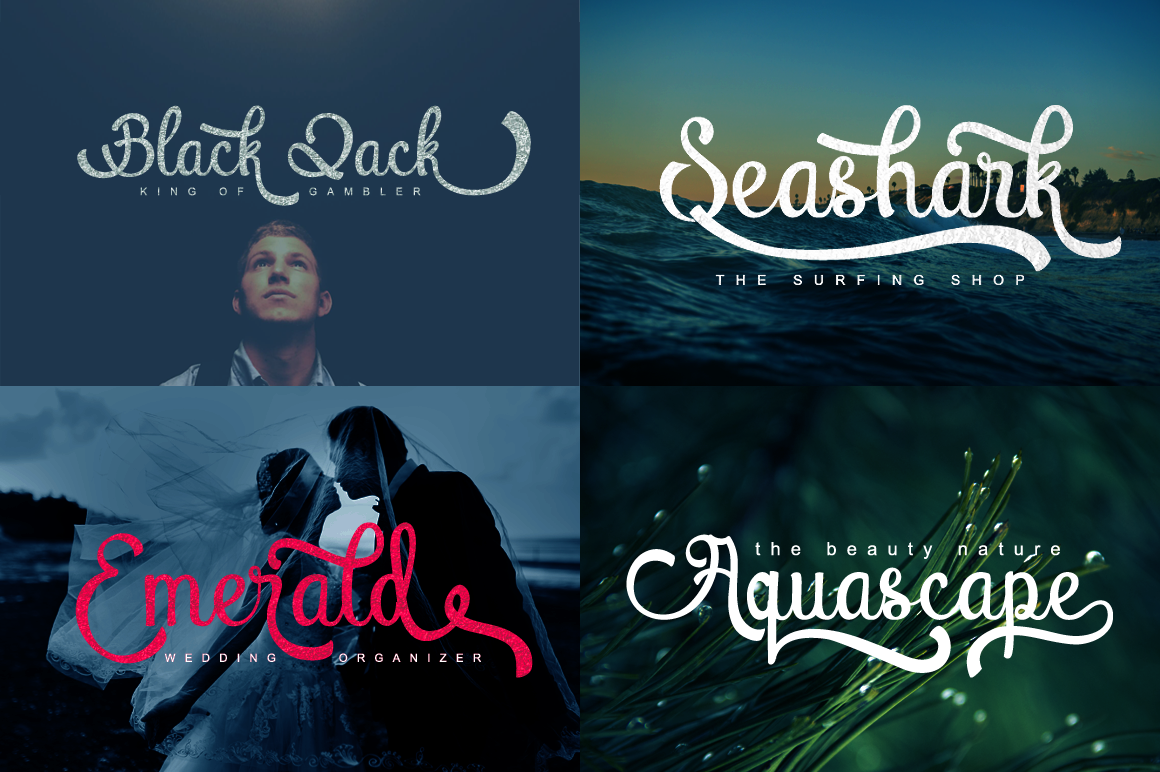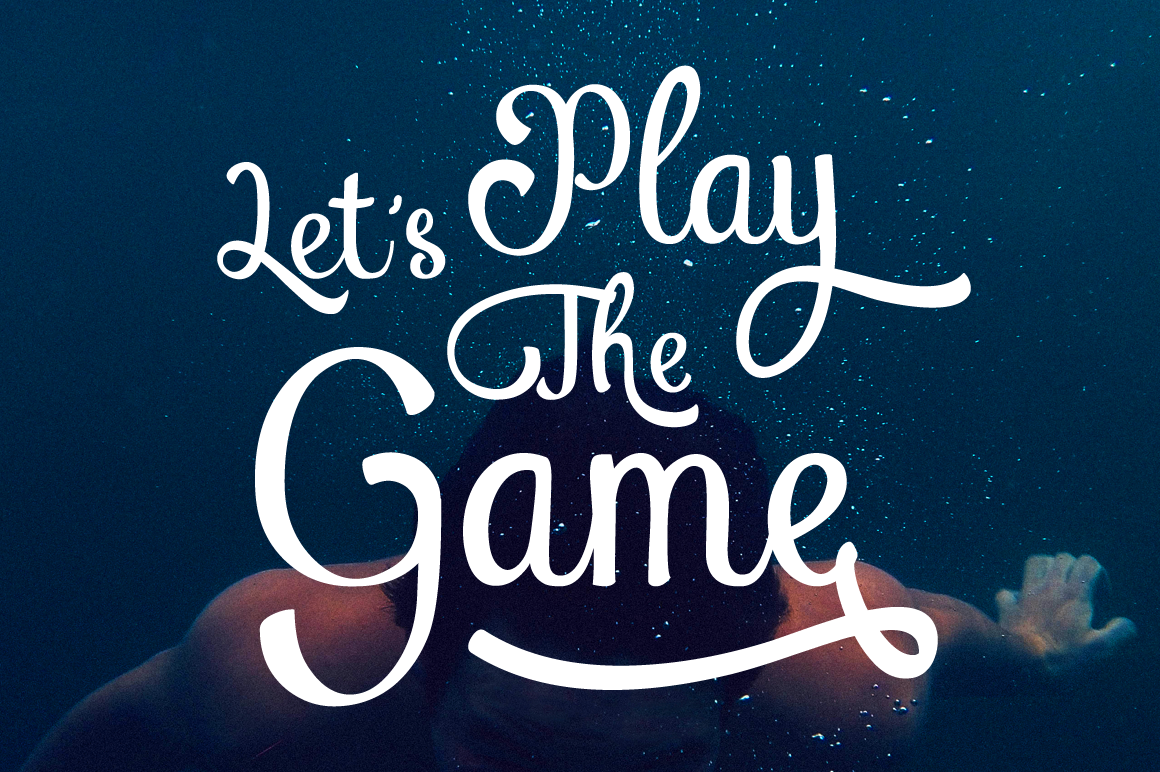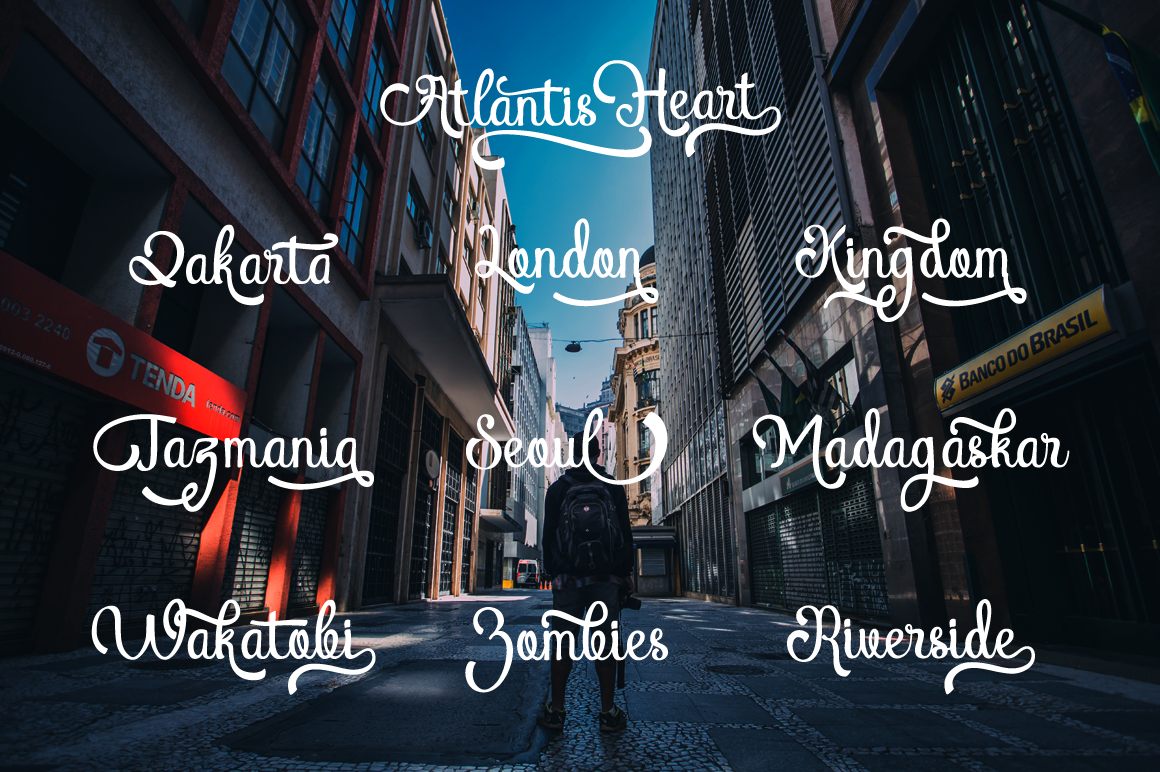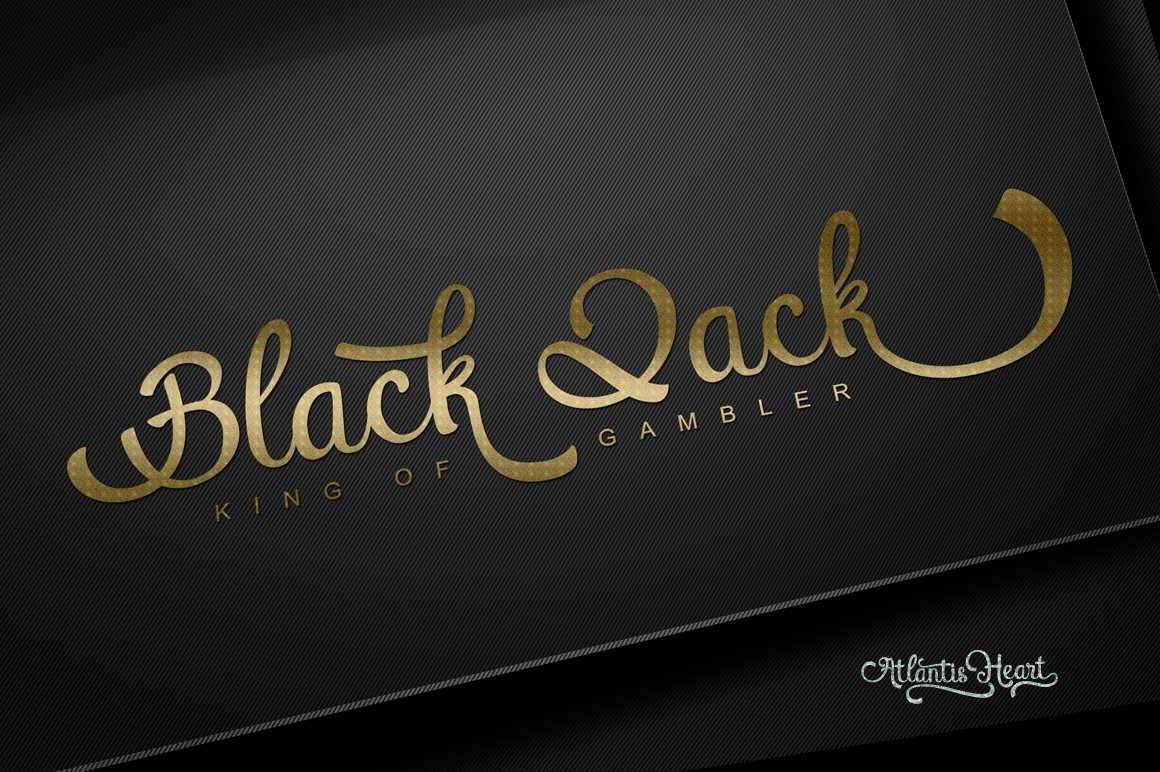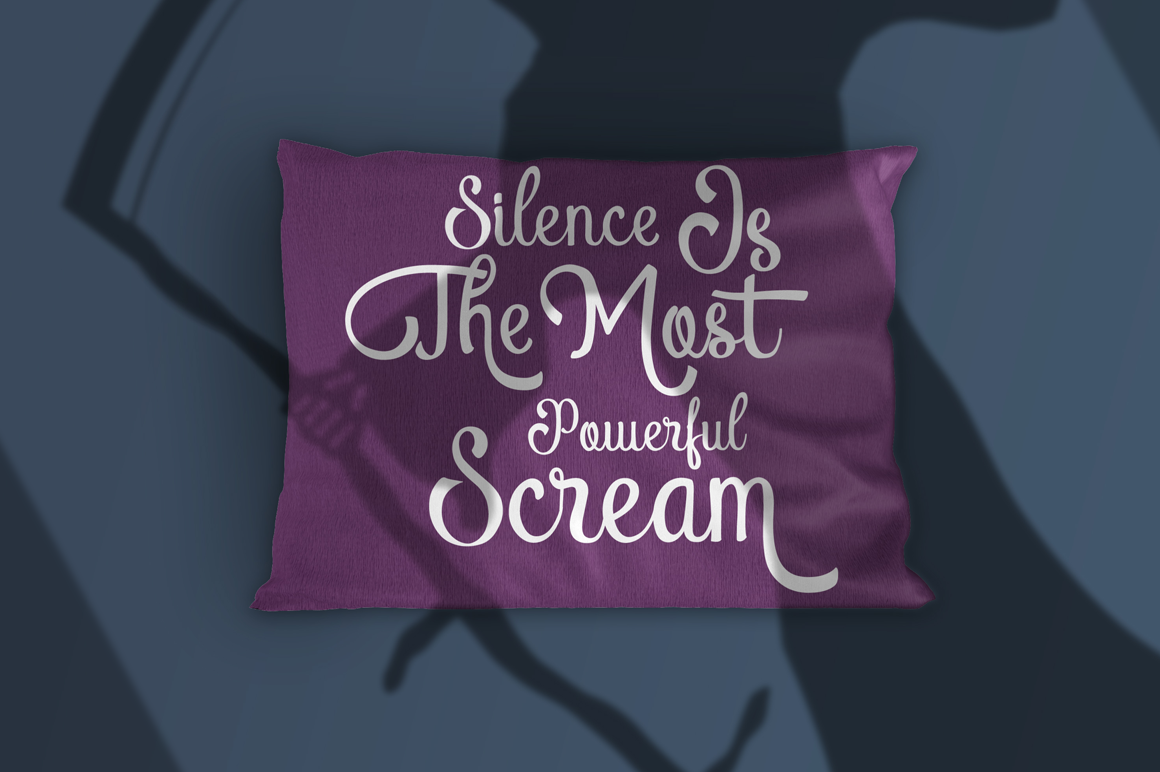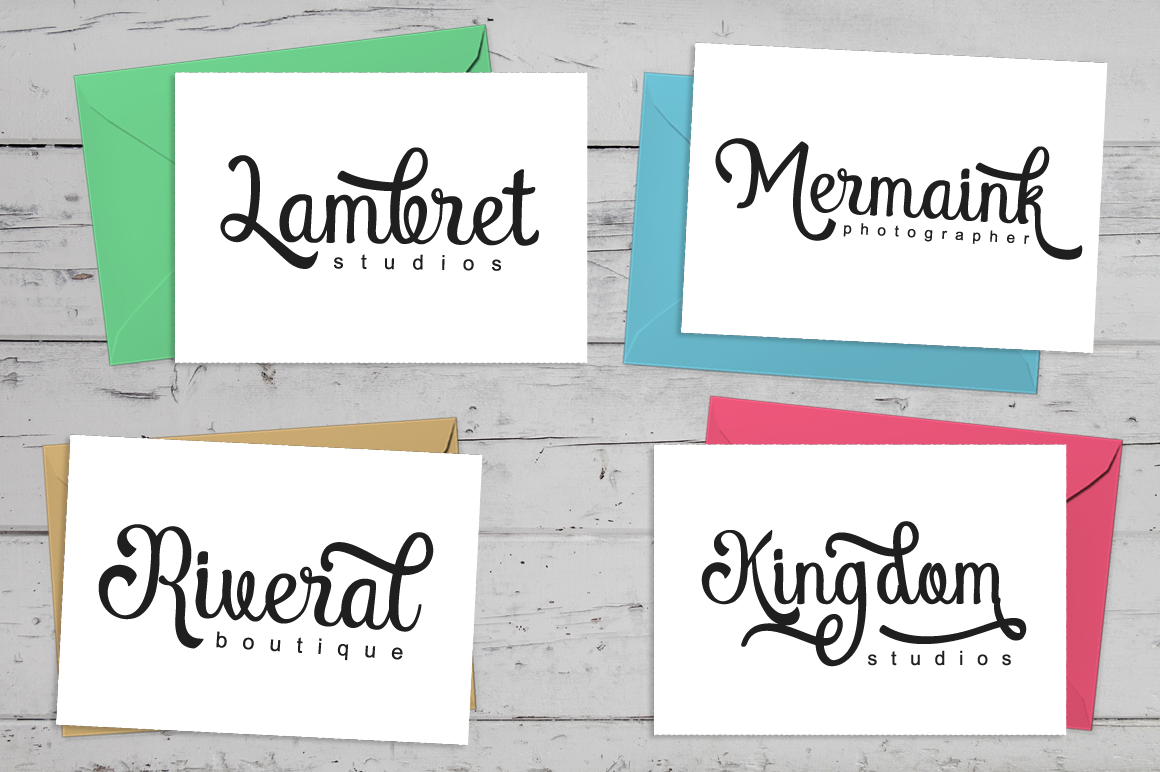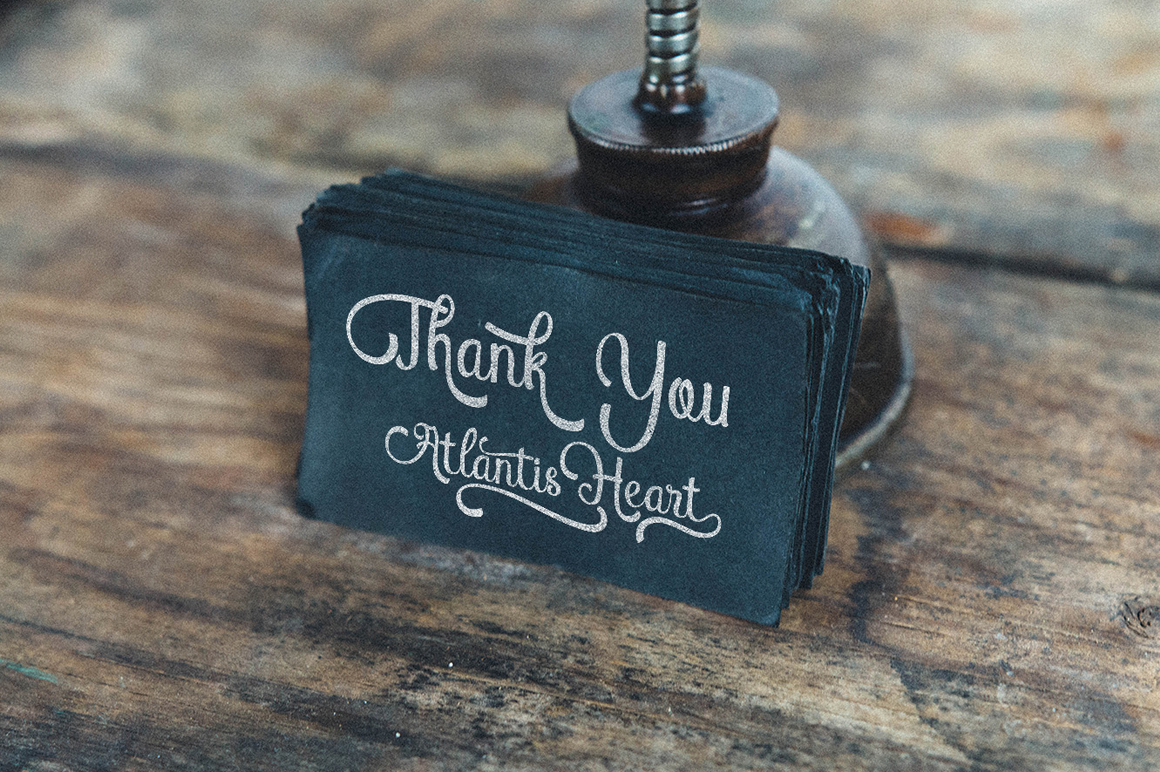
Atlantis Heart Font
About Atlantis Heart Font
Atlantis Heart is a authentic brush typeface. This unique font is suitable for a large range of design purposes, from wedding invites to apparel & fashion and from business to personal design.